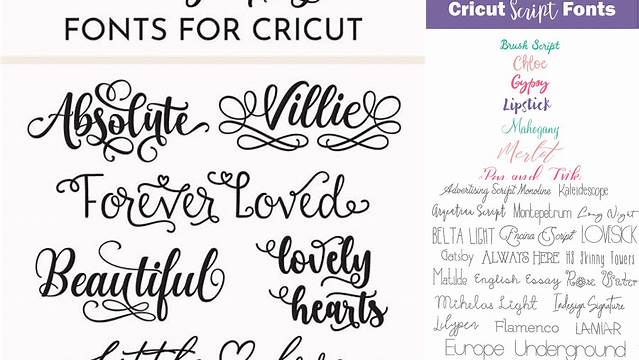
Best Script Fonts For Cricut: A Crafting Guide
Are you looking for the best script writing fonts for Cricut? Guys, choosing the right font can be a game-changer for your crafting projects! Whether you're personalizing gifts, creating stunning home décor, or designing custom apparel, the perfect script font adds that touch of elegance and personality. In this article, we'll dive into some fantastic script fonts that work beautifully with Cricut, making your projects stand out. We'll explore what makes a font Cricut-friendly, share some top picks, and give you tips on how to use them effectively. So, let's get started and find the ideal script font to elevate your crafting game!
What Makes a Font Cricut-Friendly?
Before we jump into specific fonts, let's talk about what makes a script font work well with Cricut machines. It's not just about aesthetics; functionality plays a huge role too. Cricut-friendly fonts need to be clean, well-spaced, and easy for the machine to cut. After all, you don't want to spend hours weeding intricate designs! Here are some key things to consider:
- Smooth Lines: Fonts with smooth lines are crucial. Jagged or pixelated edges can cause the Cricut blade to cut unevenly, resulting in a messy final product. Look for fonts that have been designed with cutting machines in mind, ensuring clean and continuous lines.
- Adequate Spacing: Script fonts often connect letters, which is part of their charm. However, if the letters are too close together, they can become difficult to cut and weed. Make sure there's enough spacing between the letters, or consider fonts that offer adjustable letter spacing (kerning).
- Consistent Thickness: The thickness of the lines should be consistent throughout the font. Thin, delicate lines might look beautiful on screen, but they can be challenging for the Cricut to cut, especially on materials like vinyl or cardstock. A font with a consistent medium thickness tends to work best.
- Clean Welding: Welding is the process of joining overlapping letters in script fonts to create a single, continuous cut. A good Cricut-friendly font should weld cleanly without any distortions or gaps. Test the font in Cricut Design Space to see how it welds before committing to a large project.
- Simple Flourishes: While elaborate flourishes can add flair, they can also be tricky to cut and weed. If you're a beginner or working with intricate designs, opt for fonts with simpler, less ornate flourishes. You can always add extra embellishments later if needed.
In short, the best script fonts for Cricut are those that balance beauty with practicality. They look great and are easy to work with, ensuring a smooth and enjoyable crafting experience. So, keep these factors in mind as we explore some top font recommendations!
Top Script Fonts for Your Cricut Projects
Now that we know what to look for, let's dive into some specific script fonts that are perfect for your Cricut projects. These fonts have been chosen for their aesthetic appeal, Cricut-friendliness, and versatility. Whether you're working on wedding invitations, personalized mugs, or wall decals, you'll find a font here that fits the bill. Remember, the best script writing fonts for Cricut are the ones that meet the needs of your projects, guys!
1. Samantha Script
Samantha Script is a classic choice for elegant and sophisticated designs. This font is known for its extensive set of alternates and swashes, allowing you to create truly unique and customized text. While it's a bit more intricate than some other fonts, the stunning results make it worth the effort. Here’s why Samantha Script is a favorite among Cricut users:
- Elegant and Versatile: Samantha Script works beautifully for a wide range of projects, from wedding invitations and stationery to monograms and home décor. Its graceful curves and flowing lines add a touch of luxury to any design.
- Extensive Character Set: One of the standout features of Samantha Script is its vast collection of alternate characters and swashes. This gives you incredible flexibility to customize the look and feel of your text. You can mix and match different letter styles to create a truly bespoke design.
- Clean Cutting: Despite its intricate details, Samantha Script cuts surprisingly well on Cricut machines when used with the appropriate settings. It's essential to use a sharp blade and adjust the pressure and speed settings for your material to ensure clean cuts.
- Welding Requirements: Due to its connecting letters, Samantha Script requires welding in Cricut Design Space. Fortunately, the welding process is straightforward, and the font typically welds cleanly without any distortions. Always preview your welded text before cutting to make sure everything looks perfect.
2. Always in My Heart
If you're looking for a romantic and heartfelt script font, Always in My Heart is an excellent choice. This font has a sweet and charming quality, making it ideal for projects that celebrate love and relationships. It's perfect for creating personalized gifts, cards, and keepsakes. Key features of Always in My Heart include:
Selecting the best script writing fonts for Cricut can transform your crafting projects, adding a touch of elegance and personalization. Whether you opt for the classic sophistication of Samantha Script or the playful charm of Magnolia Sky, the right font can make all the difference, guys. Remember to consider factors like smooth lines, adequate spacing, and welding requirements when choosing your font. And don't forget to follow our tips for using script fonts effectively, from welding to weeding, to ensure a flawless final product. Happy crafting, and may your projects always shine with the perfect script! Choosing from these best script writing fonts for Cricut, your creations are sure to stand out.